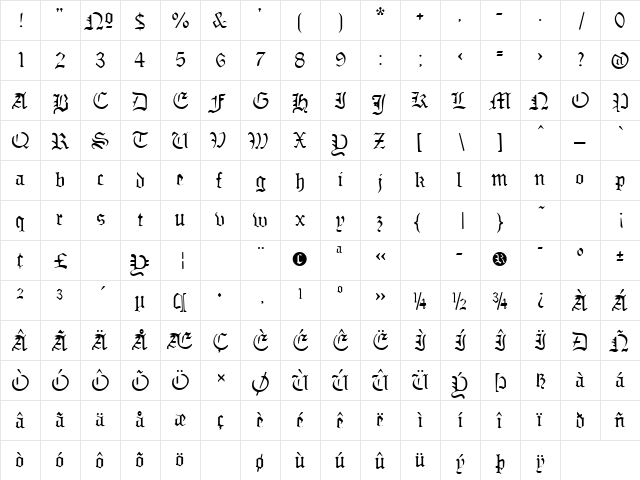
SabbathBlackRegular Regular
Design Context for SabbathBlackRegular Typeface
SabbathBlackRegular is a composed and adaptable typeface that performs quietly and consistently across a wide range of design contexts.